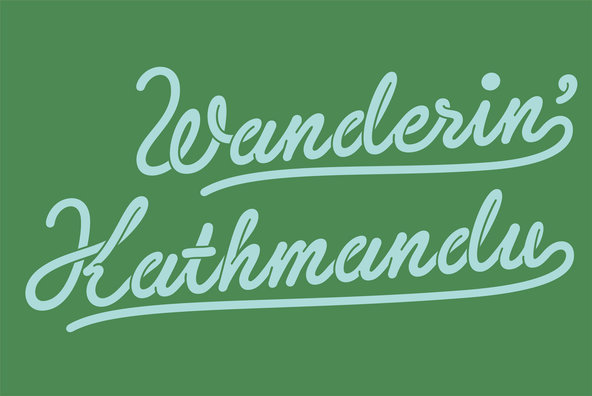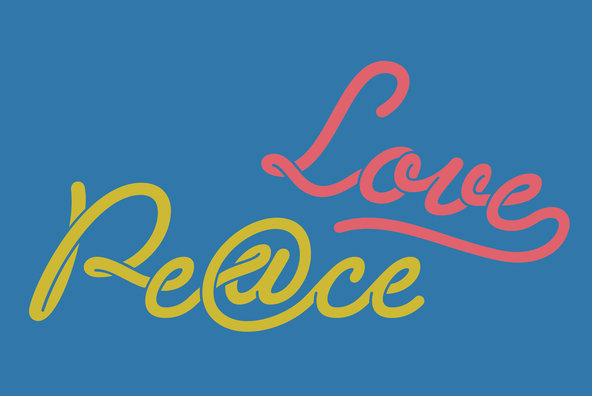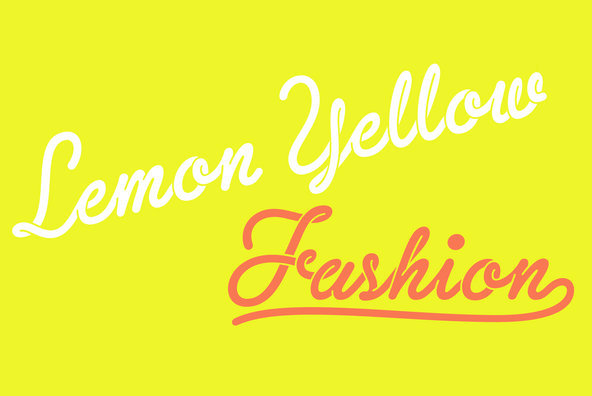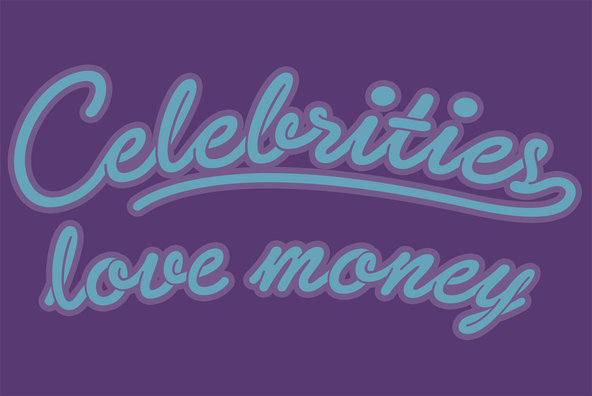
Sneaker Script Font
Sneaker Script
Sneaker Script loops and loops like spaghetti noodles using the power of OpenType alternates. The lettering made by this font brings back themes found common in the 60s & 70s.